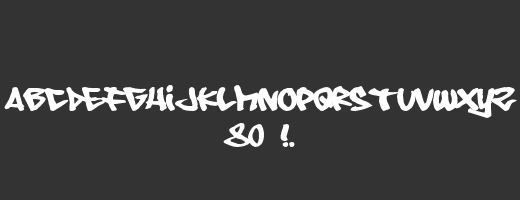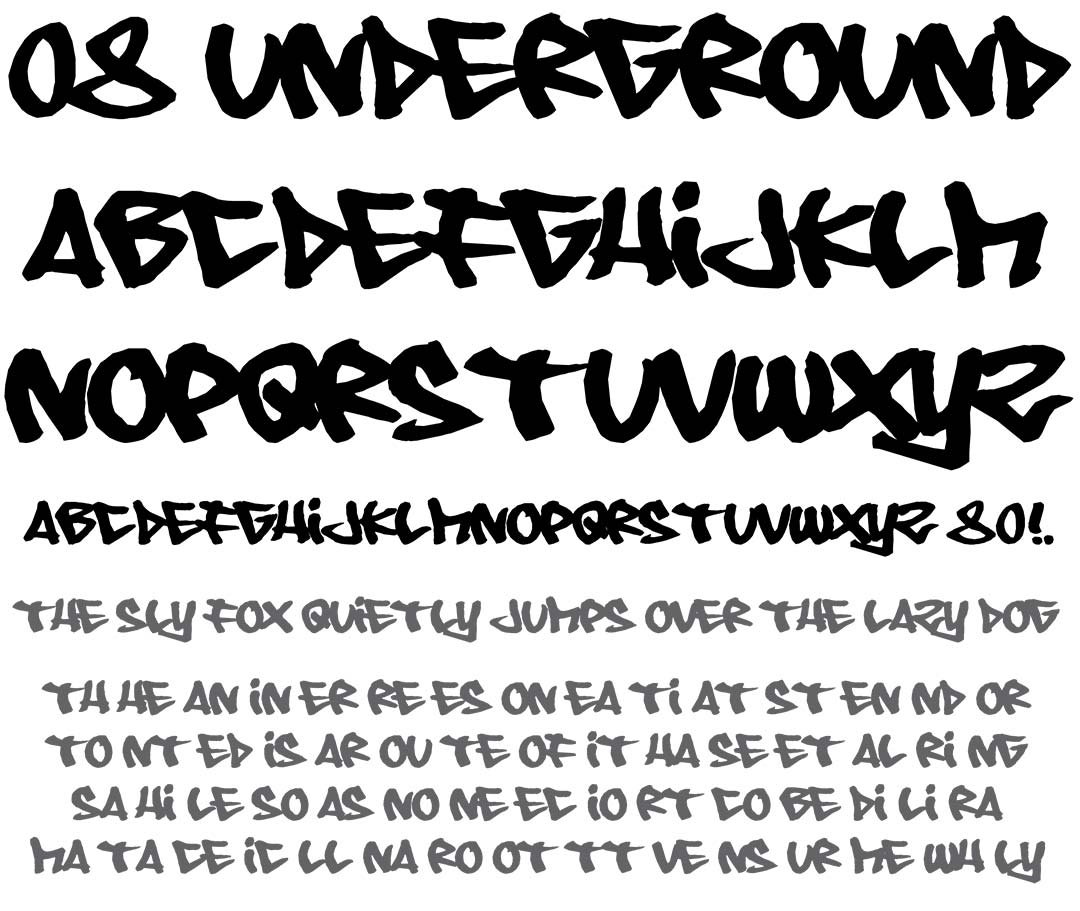
o8 Underground
o8 Underground Graffiti Alphabet
o8 Underground Graffiti Font Family
o8 Underground is a simple and readable tagging style that still retains a very characteristic feel of modern tagging. The strokes are a litle rough with natural blotches as this font was written by hand with a permanent marker.